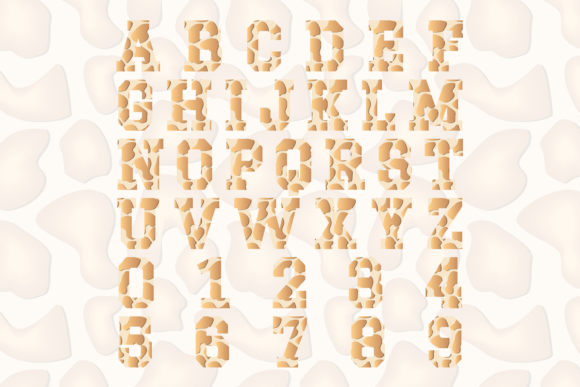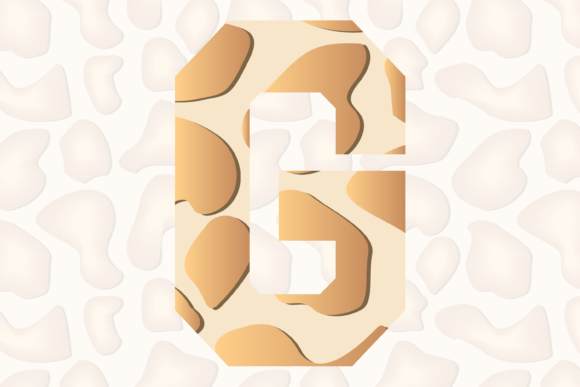
The Ultimate Guide to Giraffe Font: Adding a Wild Touch to Your Designs
I’ll never forget the time I was working on a project for a client who wanted a custom design that screamed “fun” and “playfulness.” I had been searching for the perfect font for hours, but nothing seemed quite right. That was until I stumbled upon the Giraffe Font. This incredibly cool color font contains cute giraffe prints that instantly added a lovely touch to my design. In this article, I’ll share my experience with the Giraffe Font, its features, and how to make the most of it in your designs.
An Honest Review of Giraffe Font
- ✨ The unique and adorable giraffe print design that adds a playful touch to any project
- 🌈 The color font (Opentype-SVG) feature, which allows for vibrant and dynamic designs
While the Giraffe Font is an amazing addition to any design project, there are a few things to keep in mind:
- 🤔 Some users may find the font a bit tricky to work with, especially if they’re new to color fonts or Opentype-SVG
The Backstory Behind Giraffe Font
The Giraffe Font was designed by a team of creatives who wanted to bring a touch of wildness to the world of design. Inspired by the majestic giraffes of Africa, they created a font that captures the playful and curious spirit of these amazing animals. The result is a unique and adorable font that’s perfect for adding a fun and playful touch to any design project.
| Font Name | Giraffe Font |
| Author | WADLEN |
| What is a color font, and how does it work? | A color font, also known as an Opentype-SVG font, is a type of font that allows for multiple colors and designs within a single font file. This is achieved through the use of SVG (Scalable Vector Graphics) and OpenType features. |